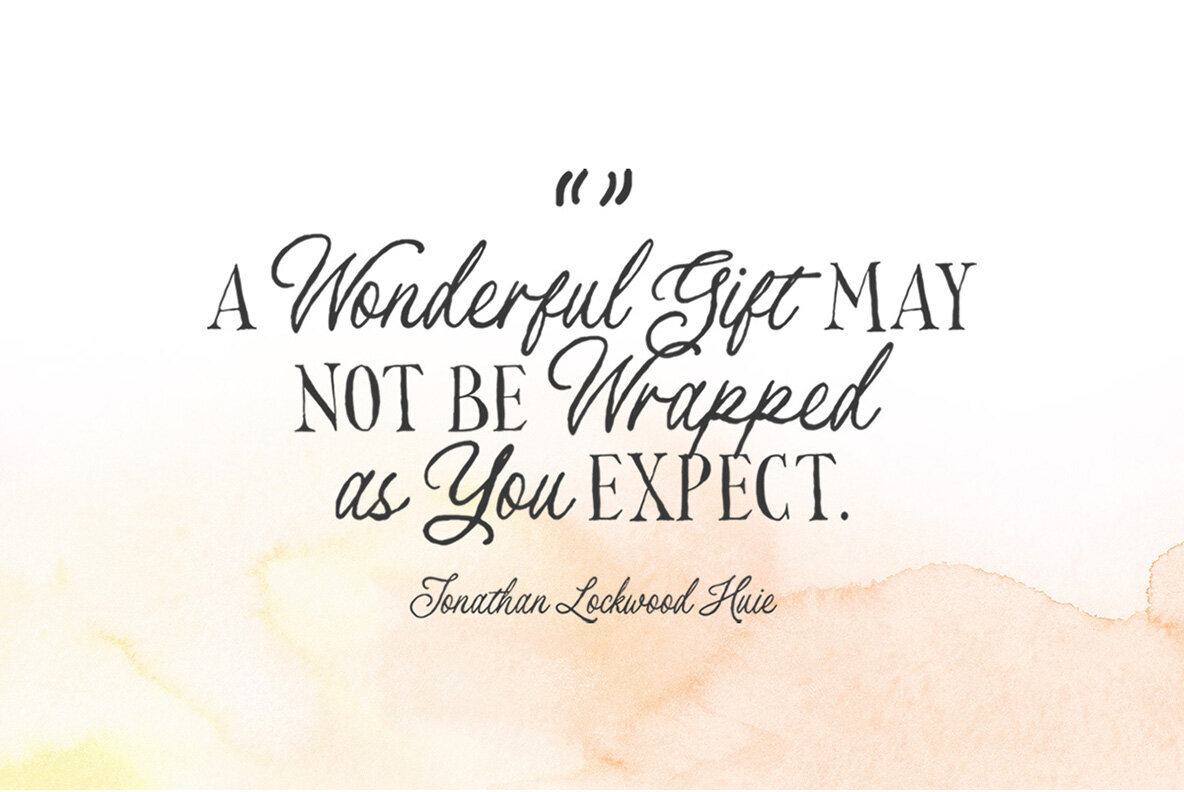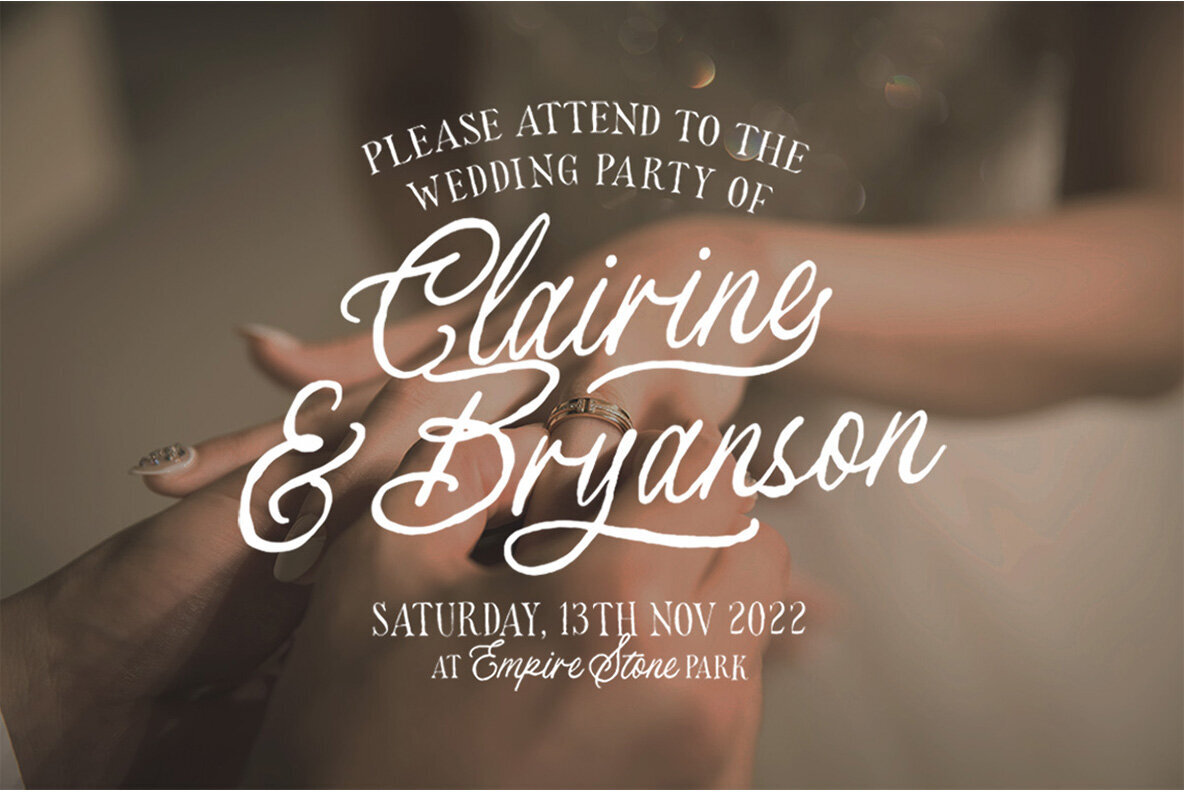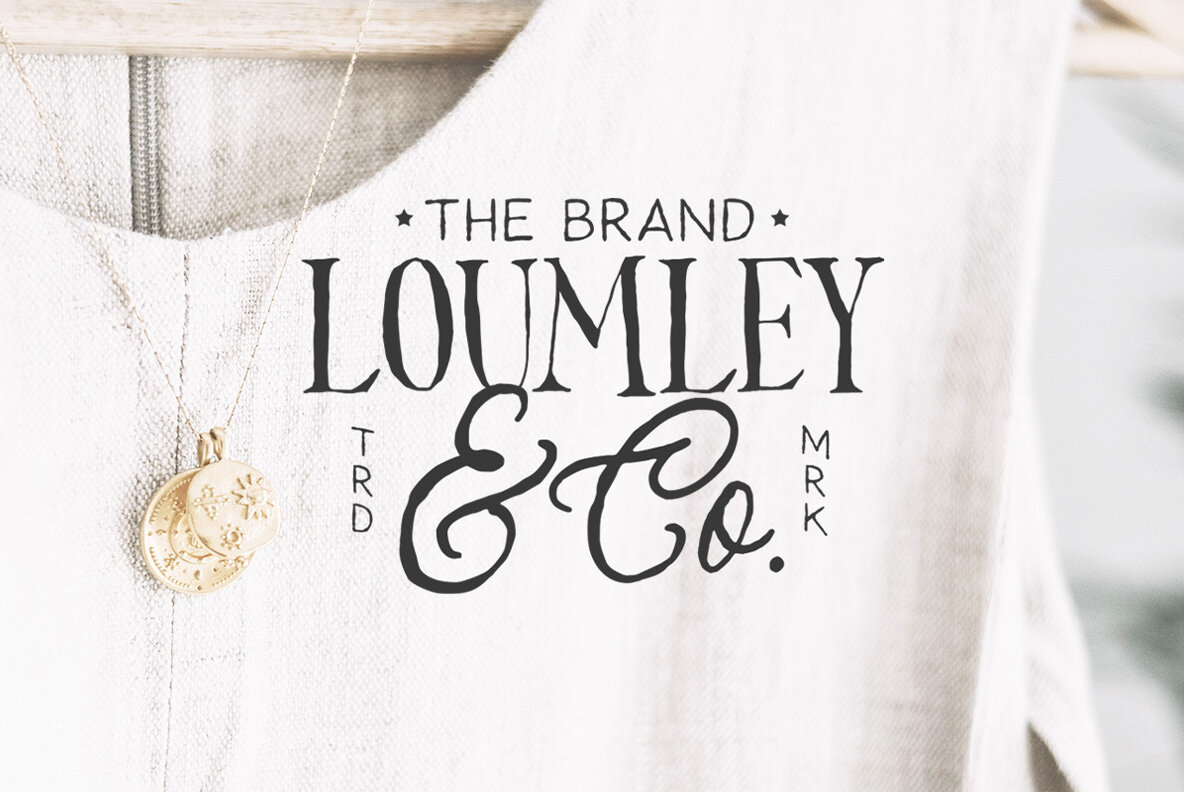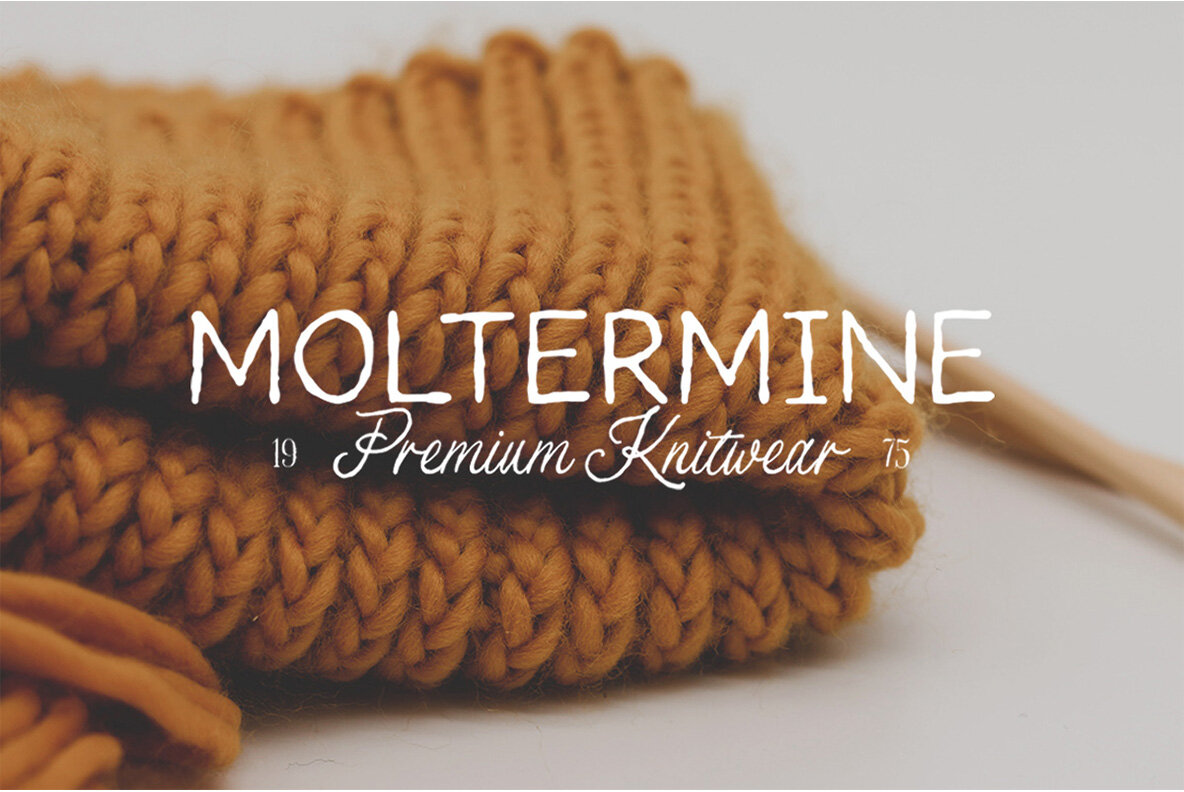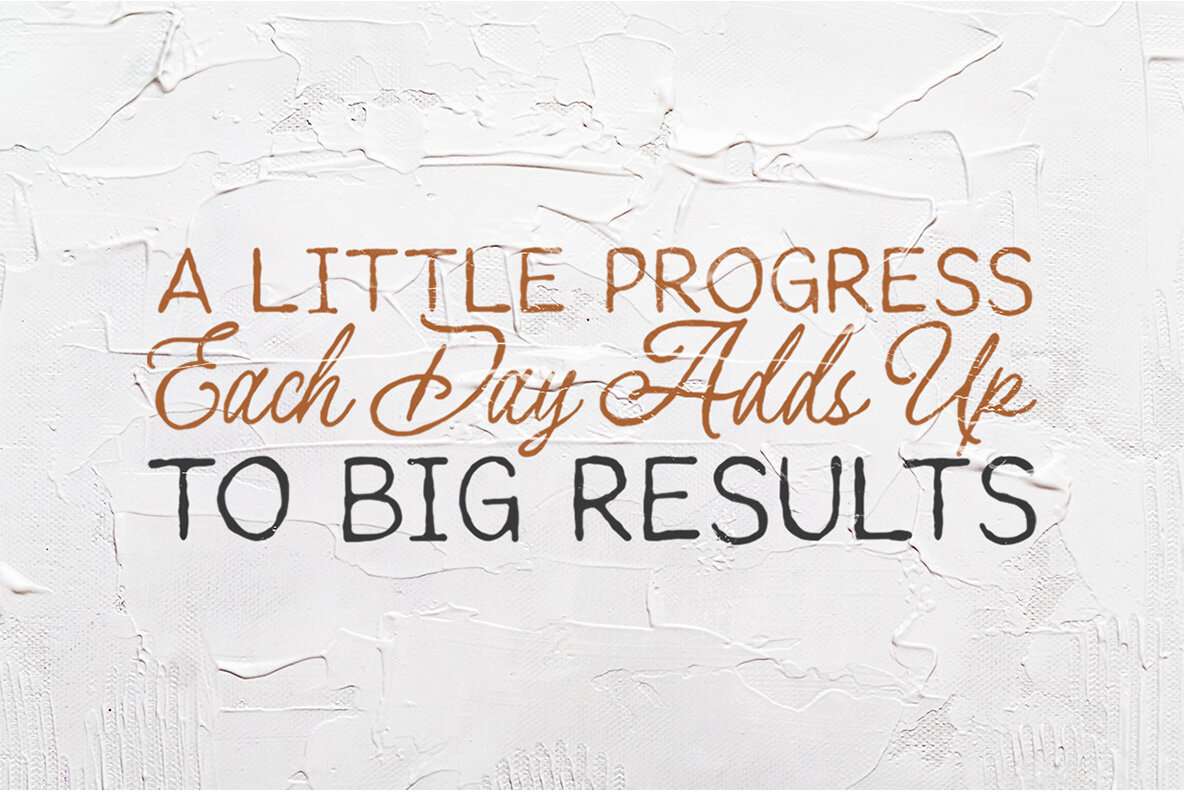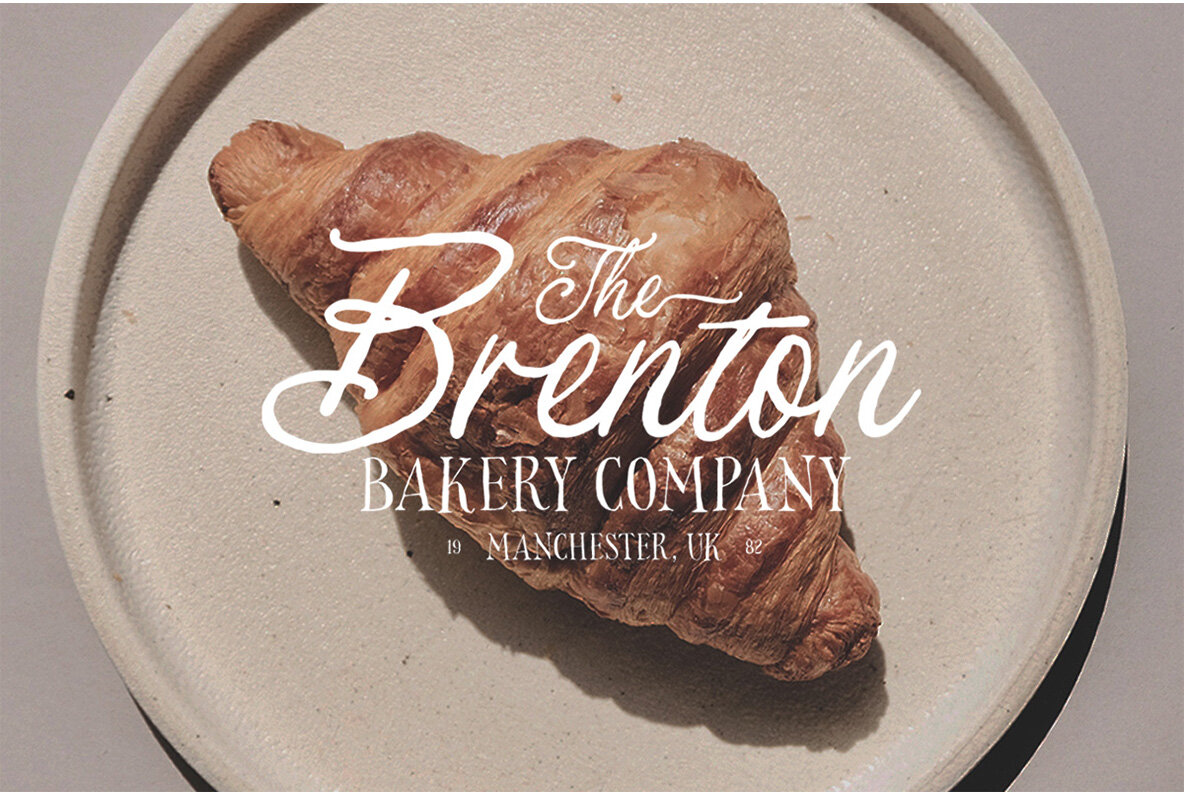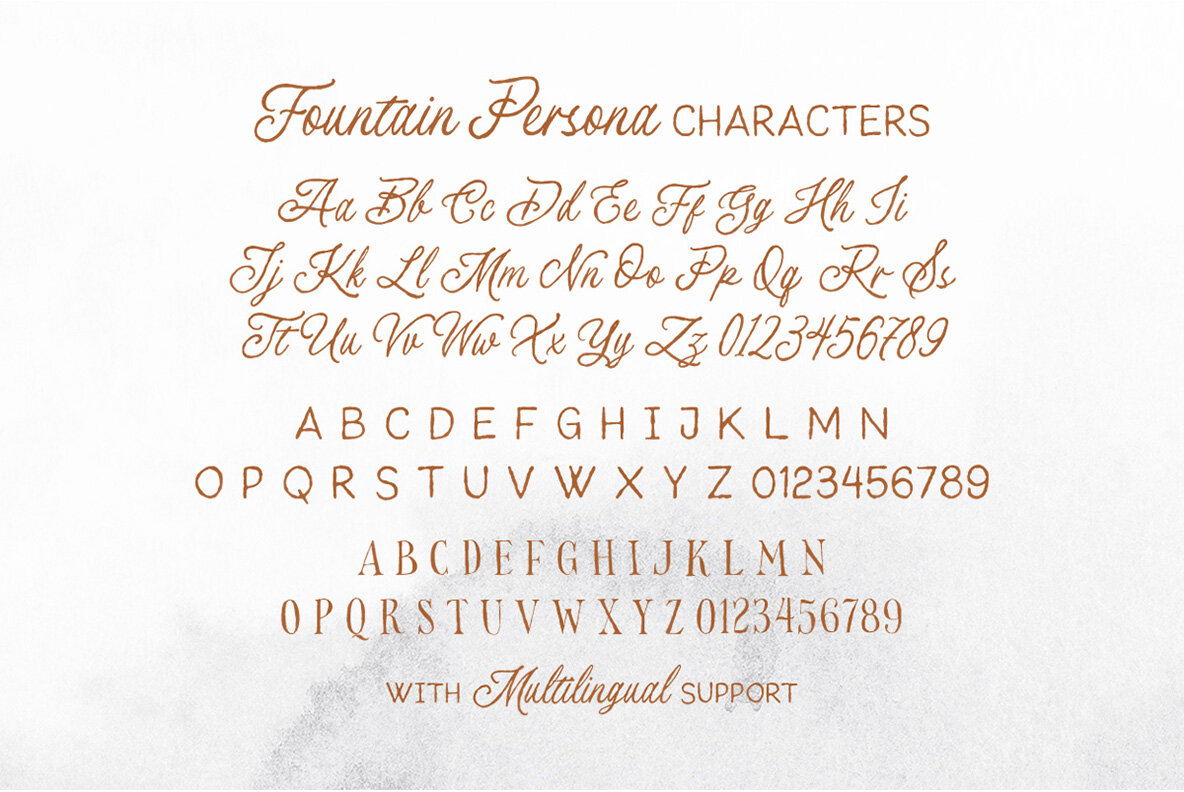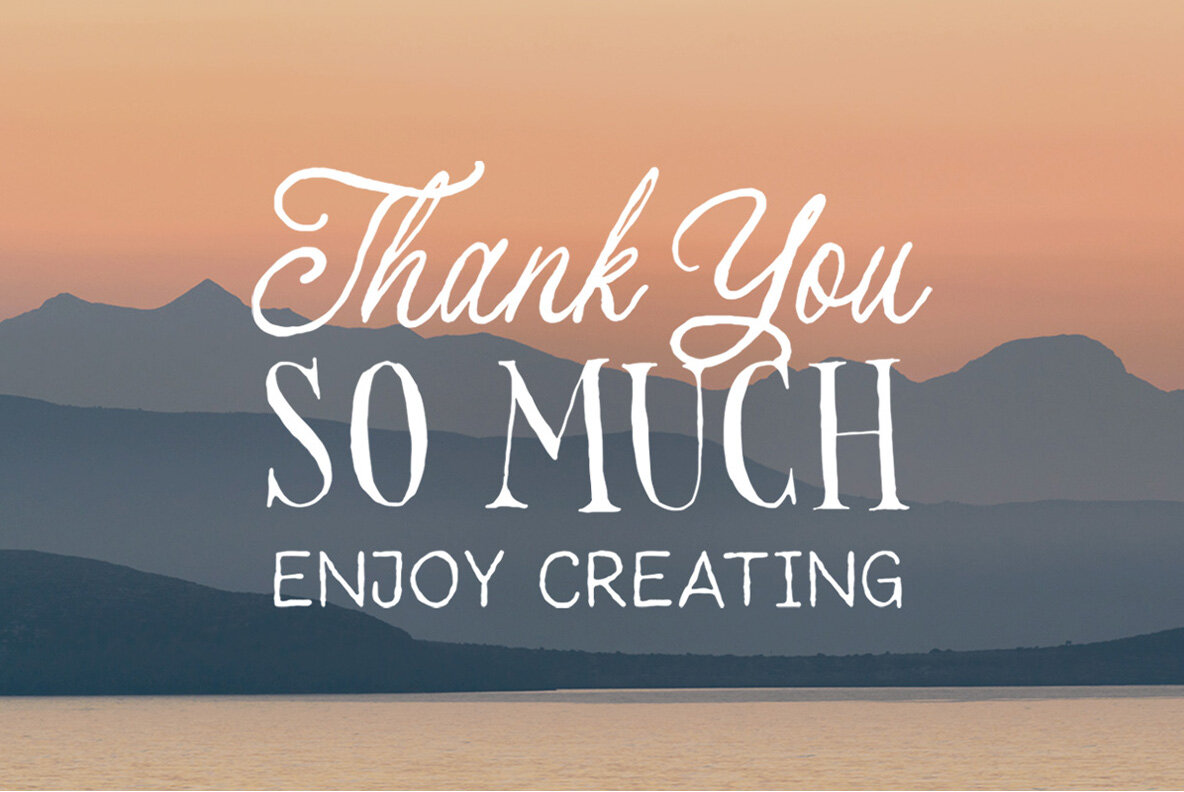
Fountain Persona Font
Fountain Persona is a font pack that has three different fonts. These were created based on authentic hand writing with a natural signature style.
- Numbers and Punctuation